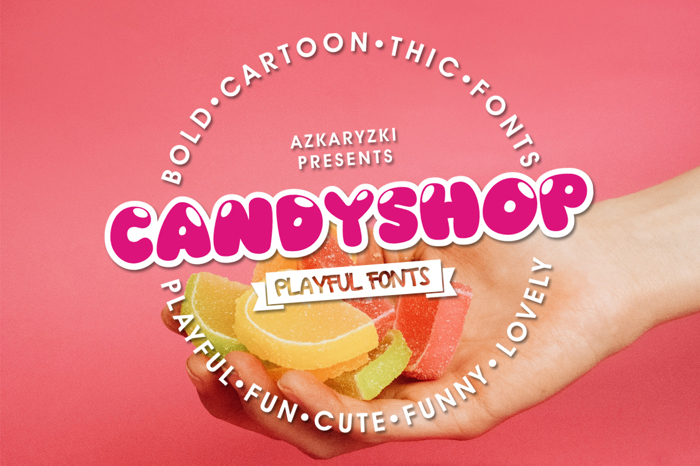
Candyshop Font
Sweet and legit font. Like Candyshop, this font offers fonts with cute and cute shapes like candy. Suitable for various things related to children, birthday parties, and various other fun things. Welcome to Candyshop:)